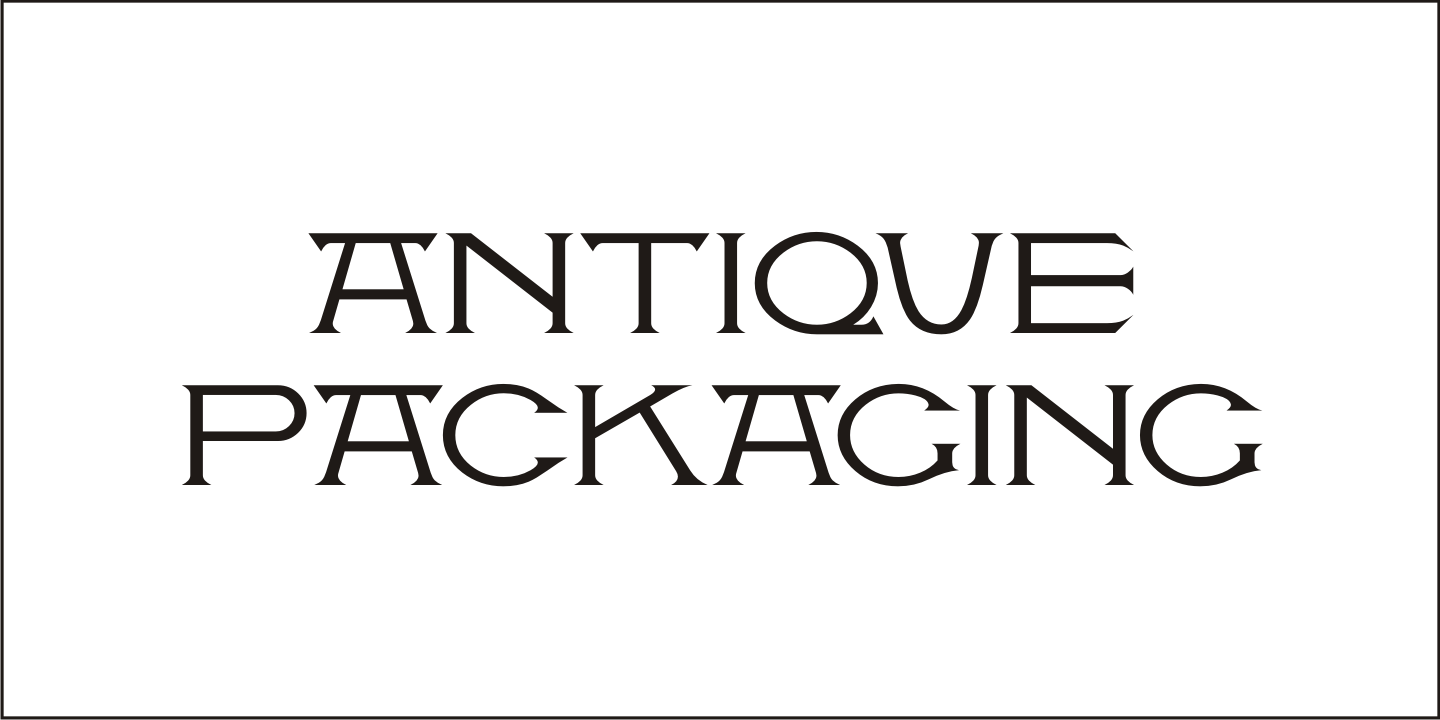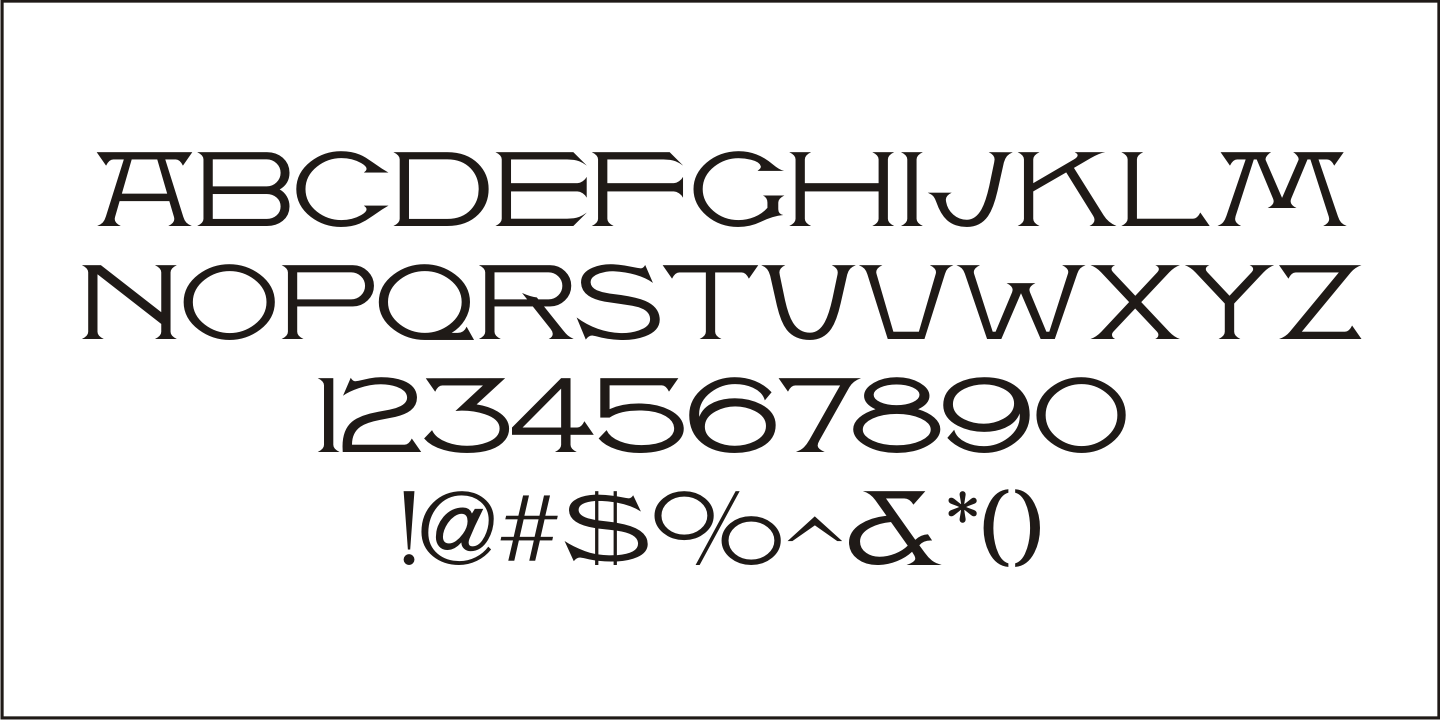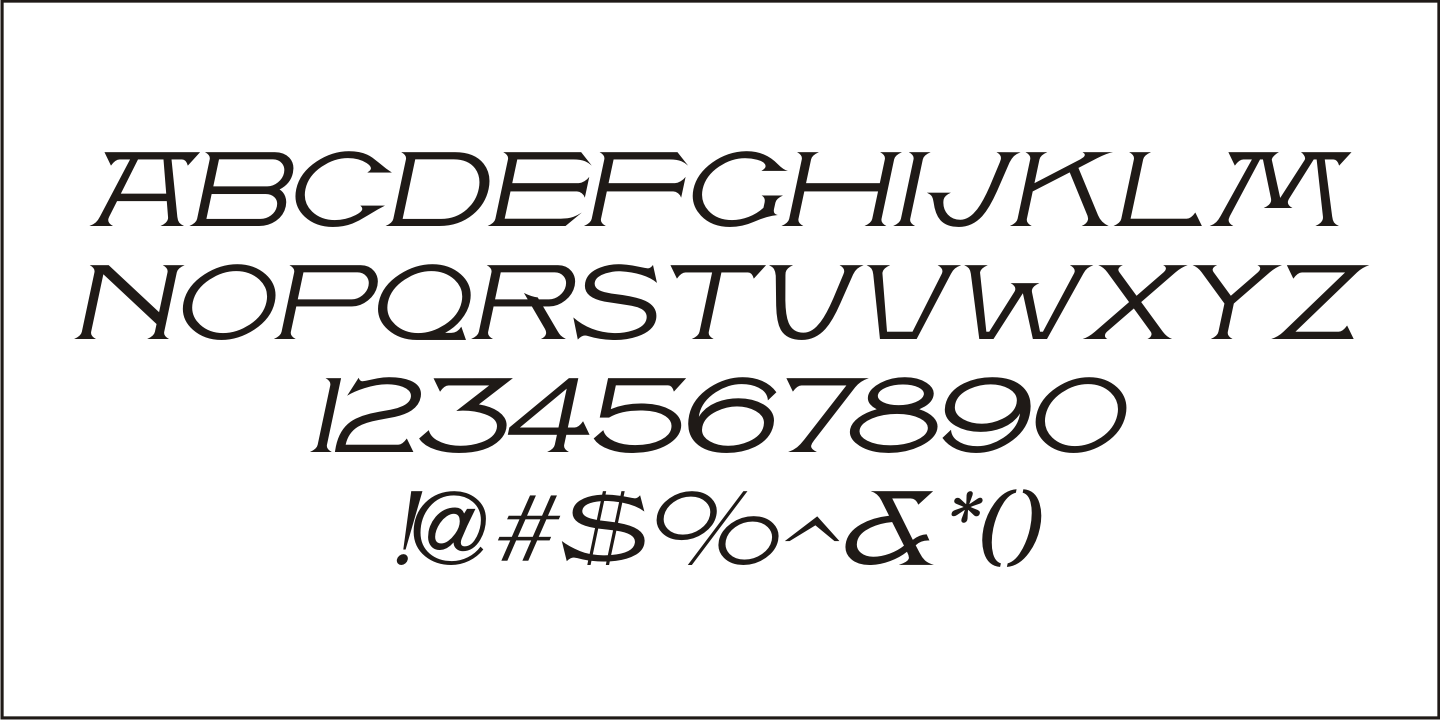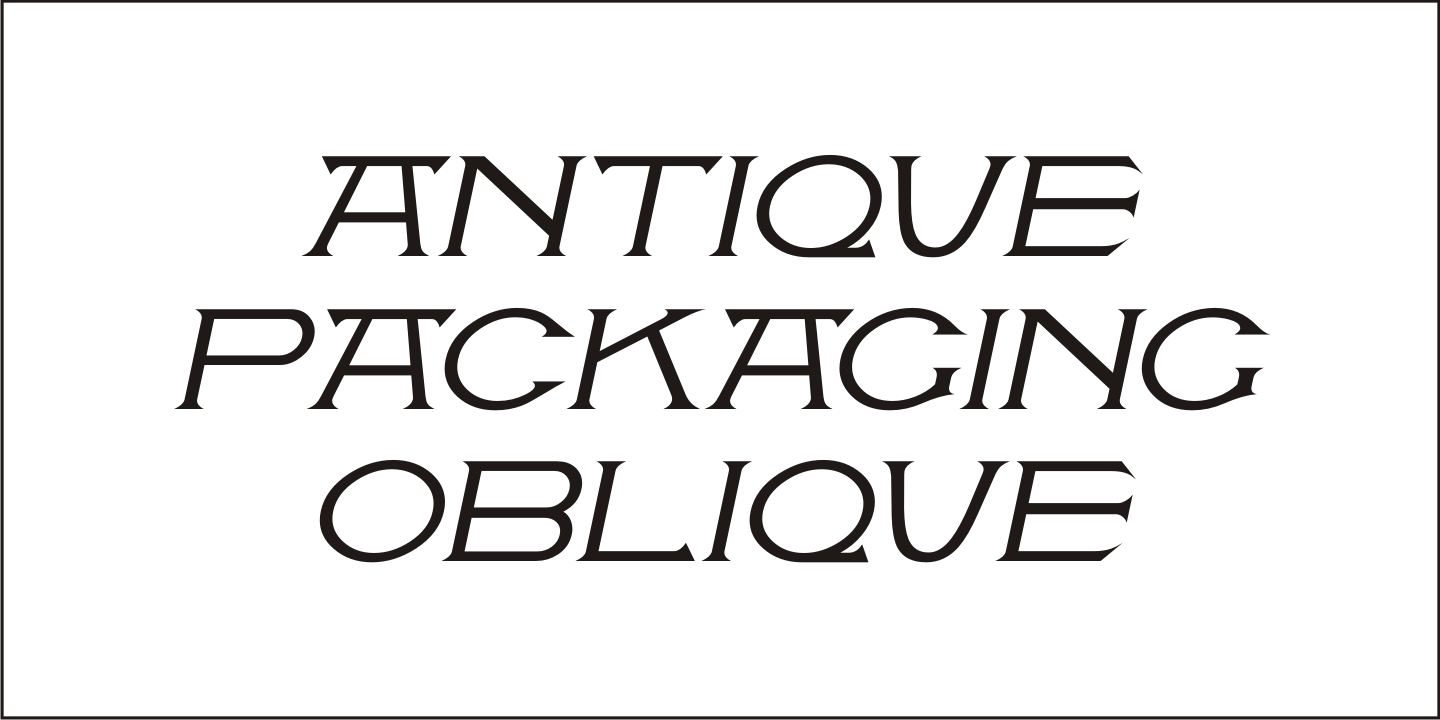
Antique Packaging
The box cover of 'Drawing Stencils No. 3 for Use on Slate or Paper” [a children's drawing set produced by Montgomery, Ward & Company of Chicago circa the 1890s] had its title in an elegant spurred Roman type face.
Working from the few letters available, a complete character set was created that resulted in Antique Packaging JNL, which is available in both regular and oblique versions.